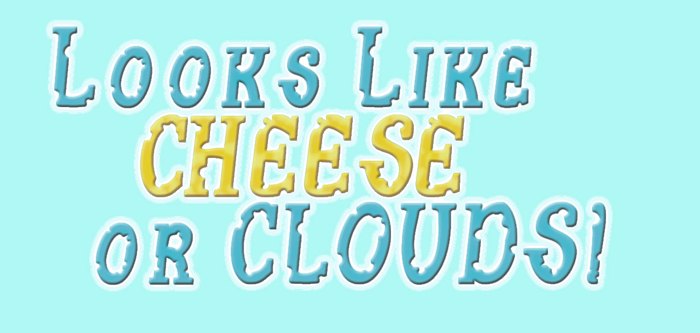
JetLag Eaten Font
Eaten Style
Bold Eaten Style
the pasta font prototypes improperly stored; so it's back to the drawing board. if you want something done right, ask someone you can blackmail. might be some usages for this design. Bleach commercials? Mouse trap packaging? Cloud computing user manuals?
Have managed to get myself incarcerated in Milan. (Nice view of the city from my cell, by the way. Am considering developing a striped font- now that i have some time on my hands.)
It has been said: never try to bribe a castrato with cheese. And I never have. But how was I to know that there's a corrolary to that adage involving carbon credits and tax collectors. Luckily I've got Cardinal Vespucci to vouch for my honor and/or sense of humor. Unfortunately he's in the Seychelles for the weekend and has turned off his cell.
All this because I'm driven to educate pasta eaters. Too bad people don't read the back of a vermicelli package like they would a corn flakes box. Alphabet soup remains my one hope